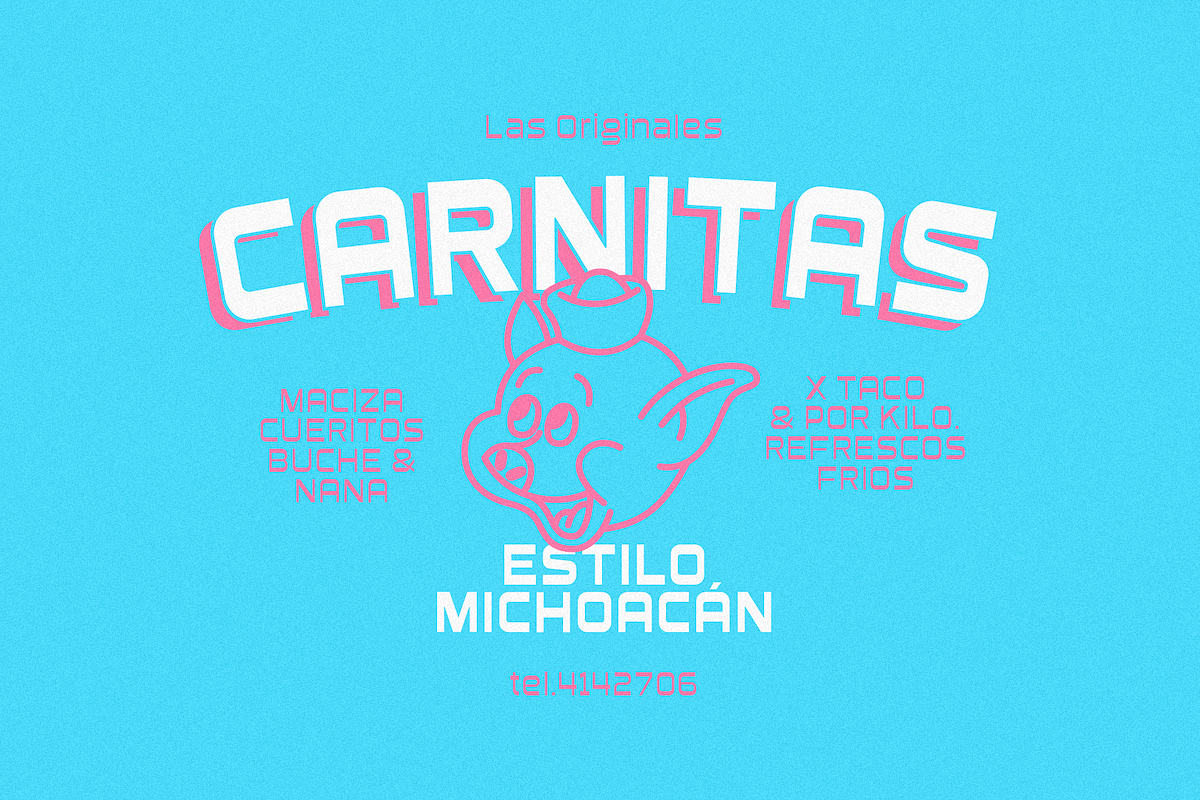
Vulka Reverse Contrast Typeface Free Download
Please note, to use this font for commercial purposes, you must purchase the full version. Vulka Reverse Contrast is a striking and modern typeface that features bold, eye-catching letterforms with a unique reverse contrast design. Perfect for logos, posters, branding, and any creative project that needs to stand out, this font adds a dramatic and contemporary edge to your designs. Whether you're designing for a creative brand, a fashion event, or a bold marketing campaign, Vulka Reverse Contrast brings personality and impact to your work. Test it out and enjoy free download access for personal use. Experience the bold, modern style of Vulka Reverse Contrast Typeface Free Download before purchasing the commercial license. Add a strong, unique touch to your designs with Vulka Reverse Contrast.